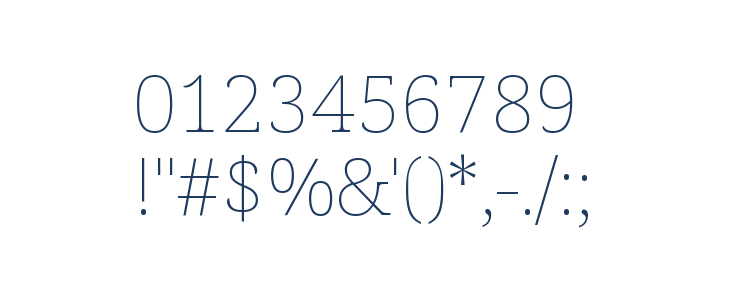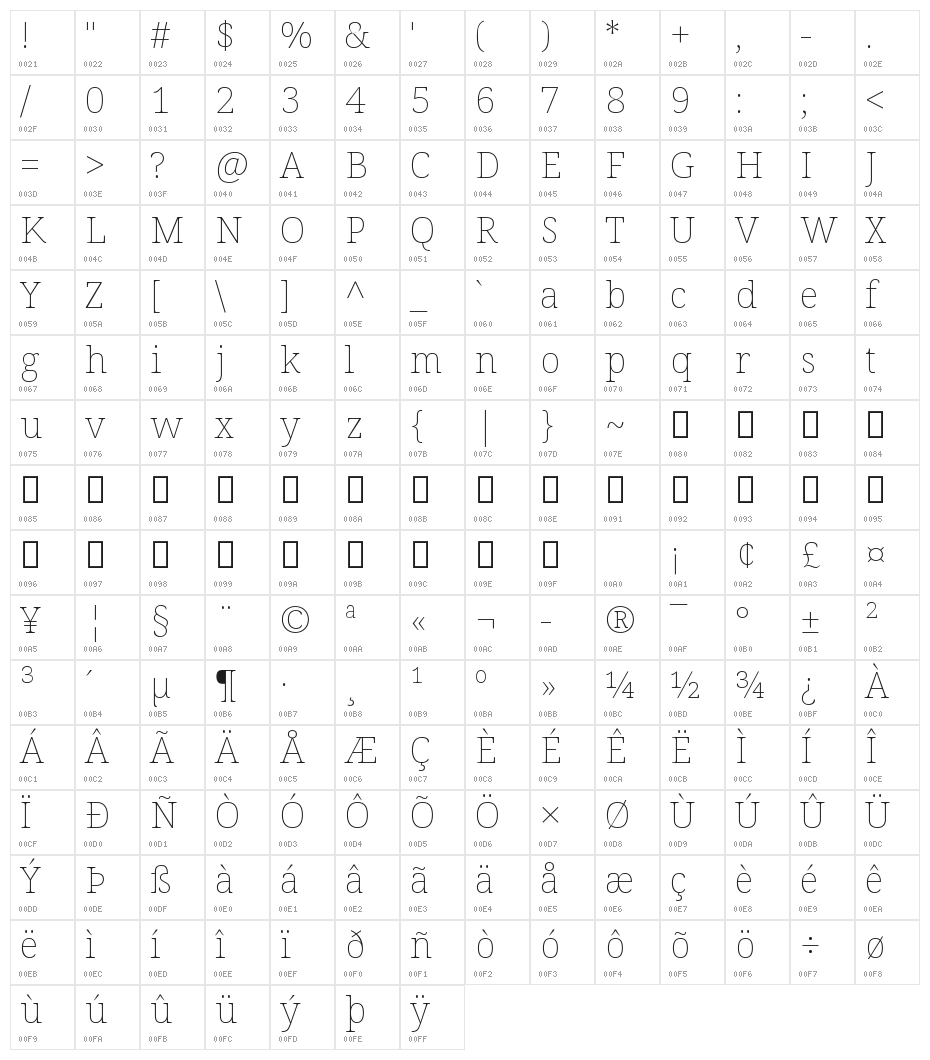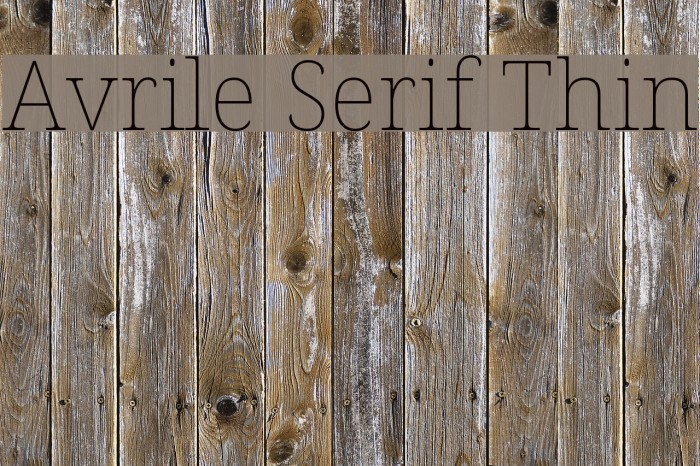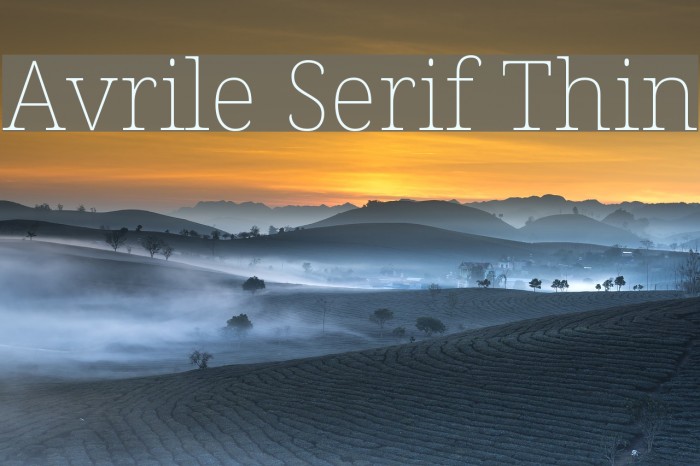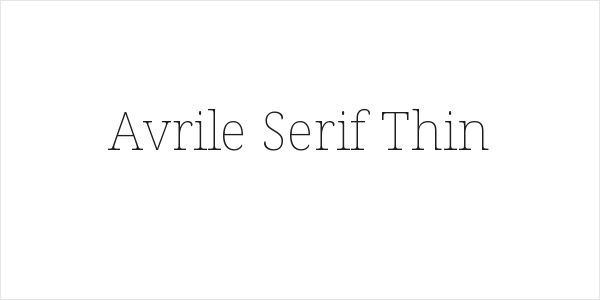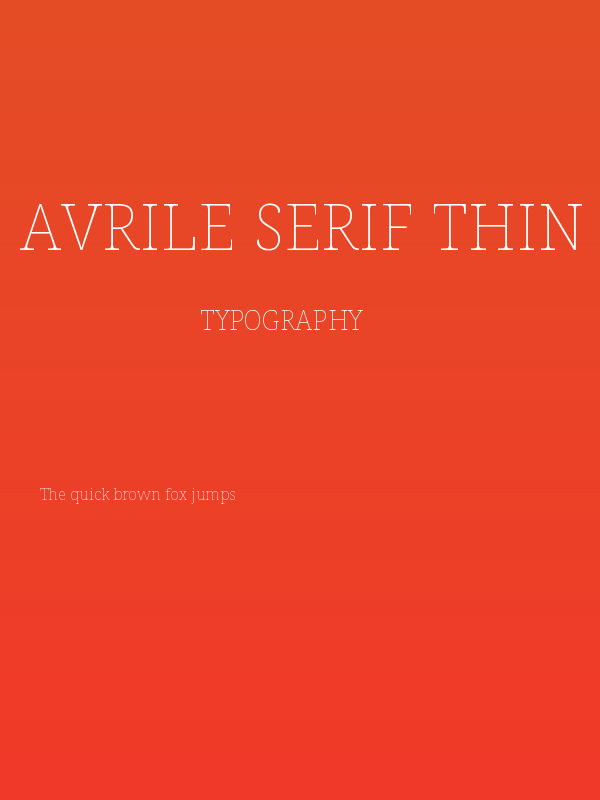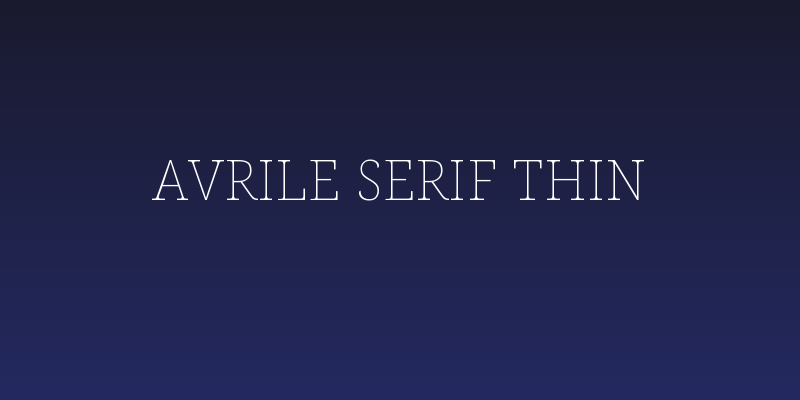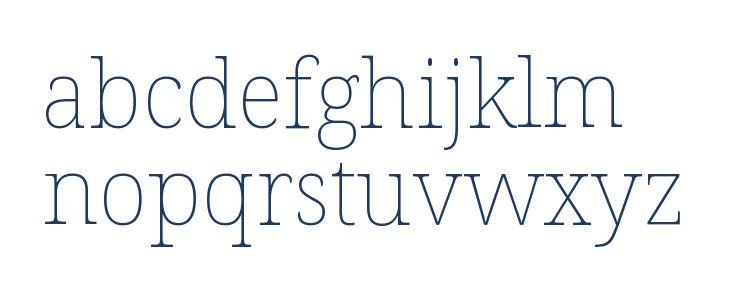
Avrile Serif Thin Font
Avrile Serif Thin Description
This font features a delicate and refined serif style, characterized by its thin strokes and elegant curves. The uppercase letters are tall and stately, while the lowercase letters maintain a consistent and harmonious flow. The numerals are clear and balanced, complementing the overall aesthetic. Special characters are designed with the same attention to detail, ensuring a cohesive look across all glyphs. The thin weight of the font gives it a sophisticated and modern appearance, making it suitable for high-end branding and editorial design.
Use CaseHeadlines, Logos, Editorial design
Proposed ProjectsIdeal for luxury branding, editorial layouts, wedding invitations, and minimalist design projects.